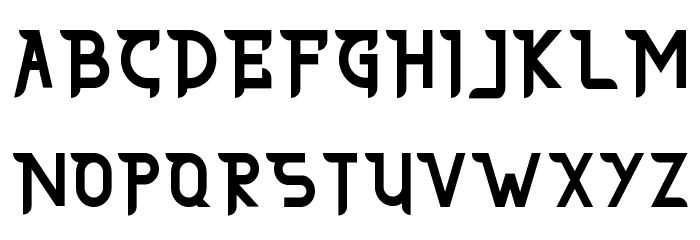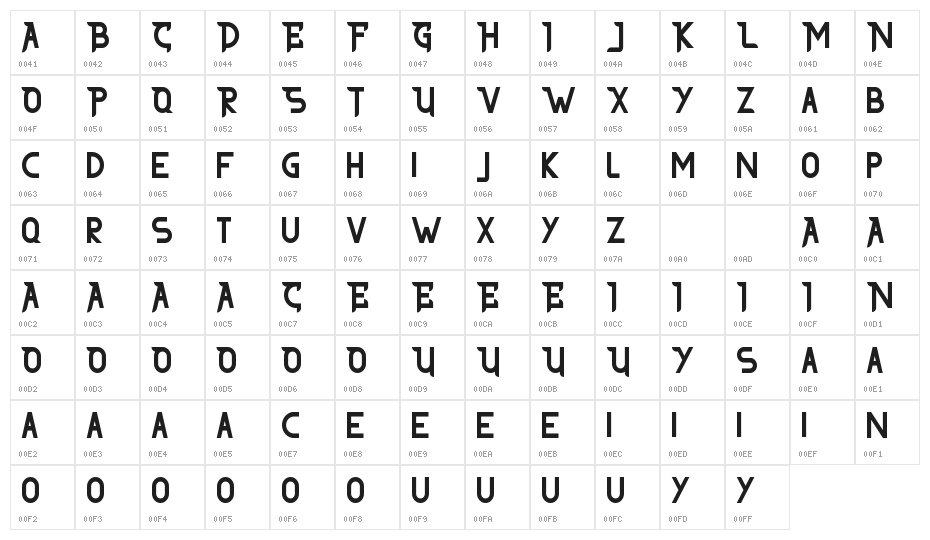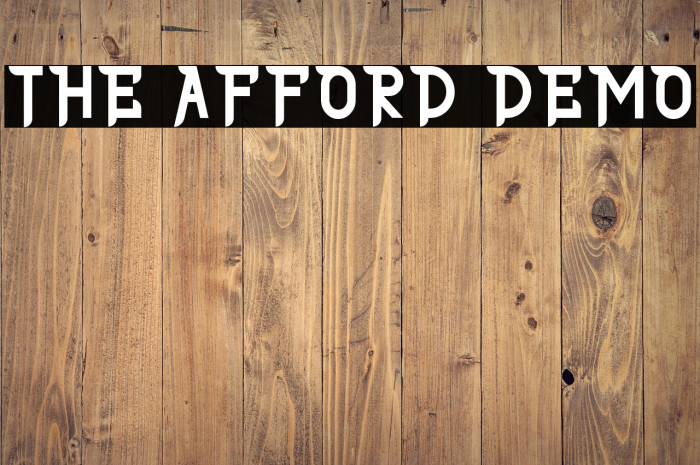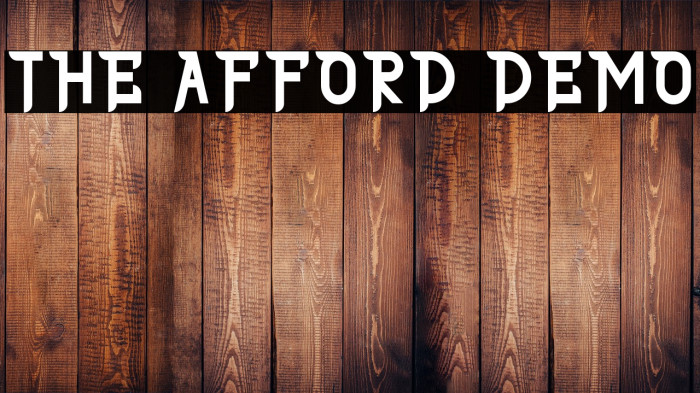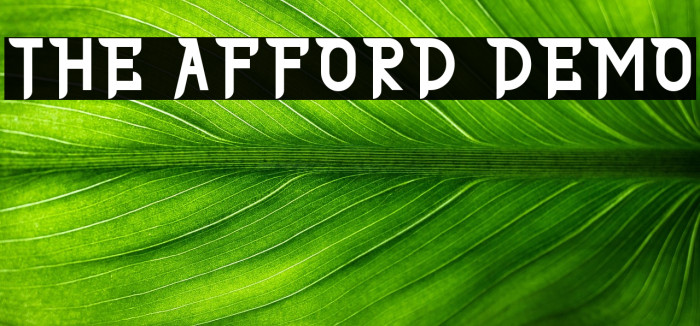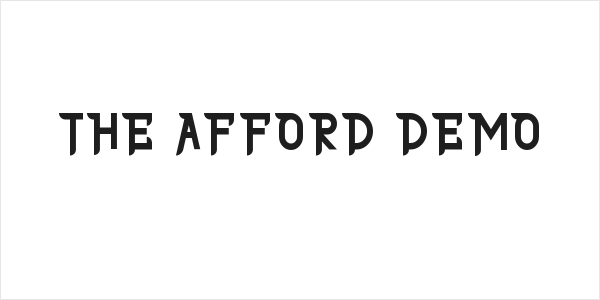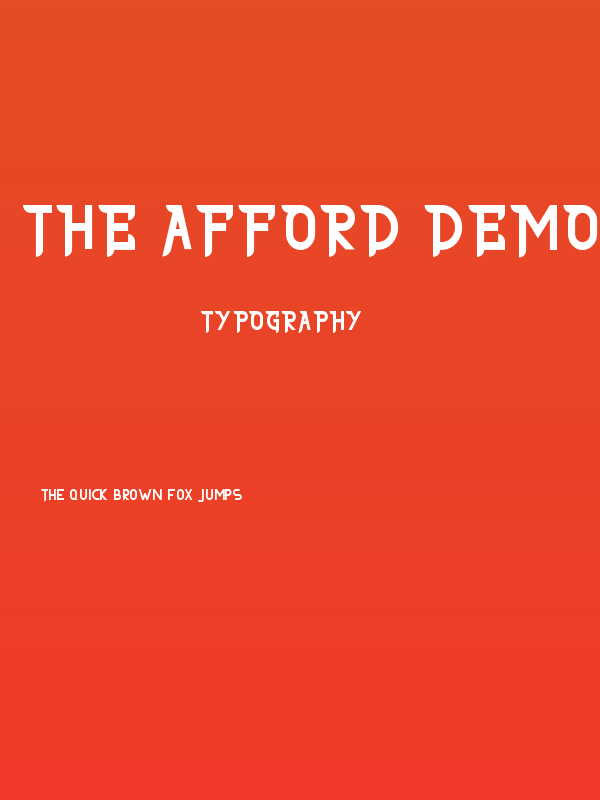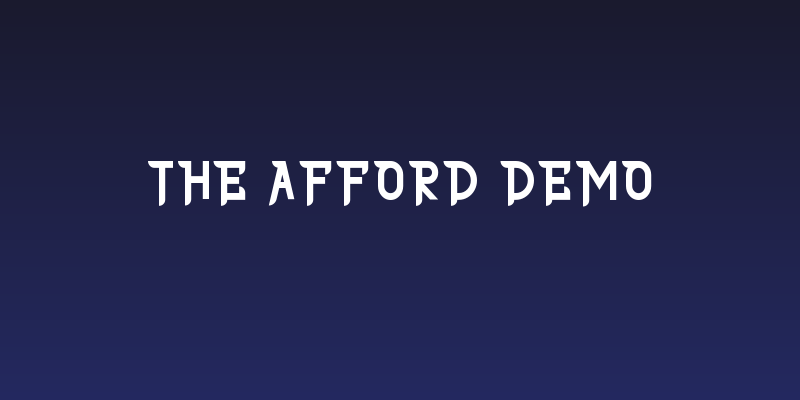
THE AFFORD DEMO Font
THE AFFORD DEMO Description
This font features a bold and geometric design with sharp angles and a futuristic aesthetic. The characters are constructed with a consistent stroke width, giving it a uniform appearance. The uppercase letters are particularly striking, with unique cuts and angles that create a sense of movement and dynamism. The lowercase letters maintain the same geometric style, ensuring cohesion across different text cases. The numbers and special characters are designed to match the overall style, making it versatile for various applications. Its distinct look makes it suitable for projects that require a modern and edgy feel.
| Proposed Projects | Ideal for branding, posters, video game graphics, and sci-fi themed projects. |